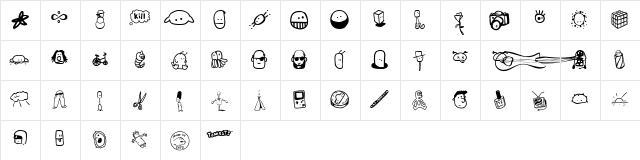
Tombats 6 Regular Font Preview
Tombats 6 Regular
Tombats 6 Regular Font Details
| Foundry | [ Divide By Zero ] Fonts |
| Designer | Tom Murphy 7 |
Design Context for Tombats 6 Typeface
Tombats 6 is a composed and adaptable typeface that performs quietly and consistently across a wide range of design contexts.